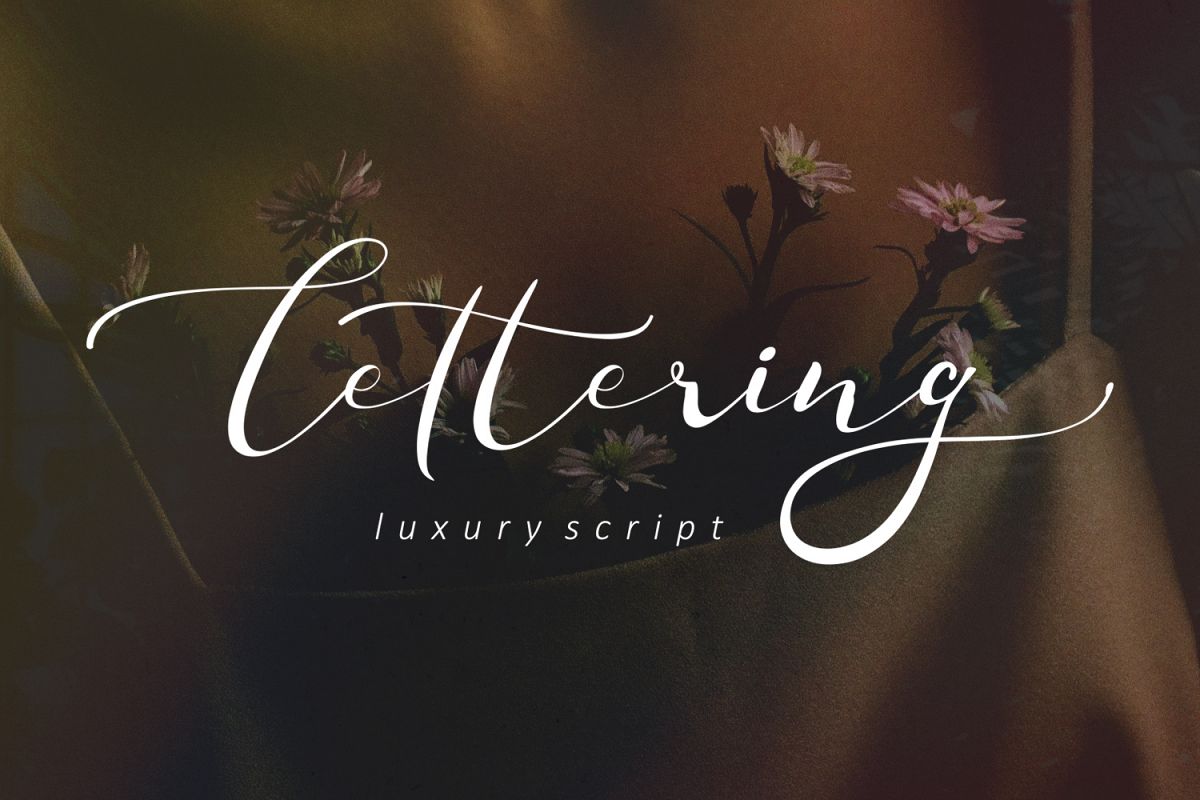
This font was designed by handwriting, inspired by fountain pen and classic script.
and it has a modern script with unique style.
Alternates Character
Ligature